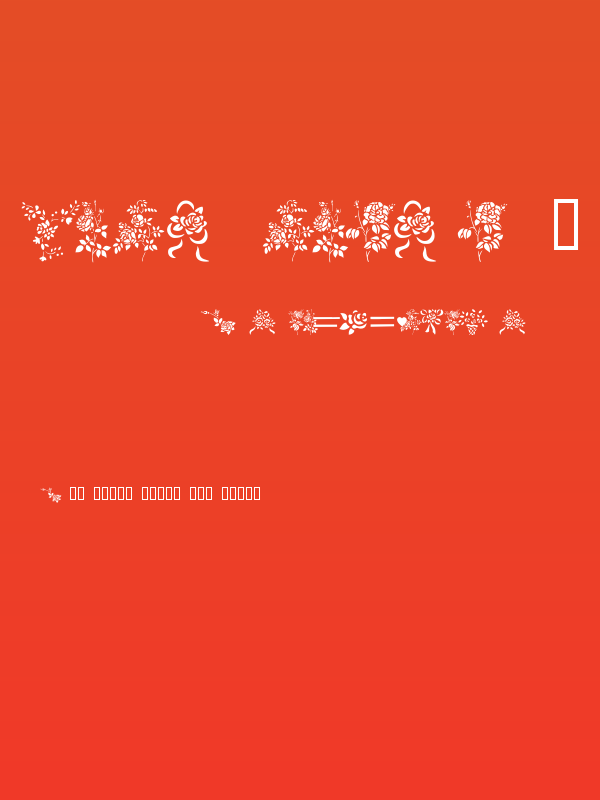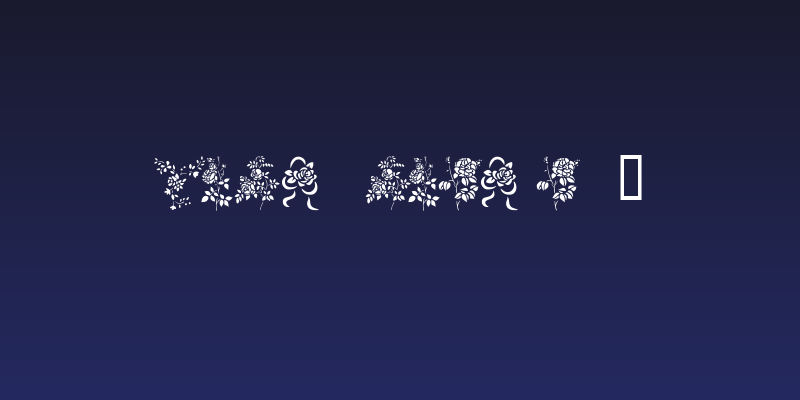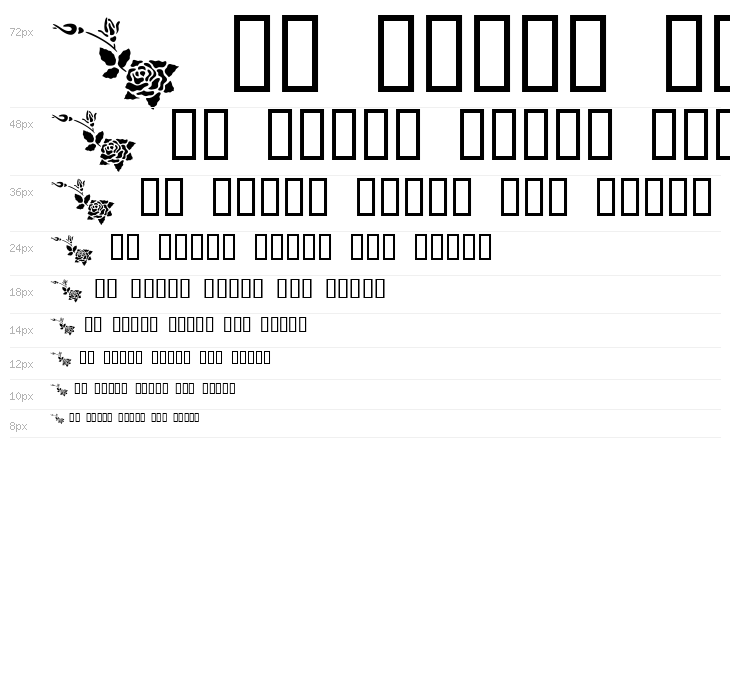
More Roses! Font
More Roses! Description
This is not a traditional font but rather a collection of decorative floral borders and motifs. The design features intricate rose patterns, leaves, and other floral elements arranged in a continuous line. These elements are highly detailed, showcasing a variety of floral styles from full blooms to buds and leaves. The motifs are symmetrical and can be used to create elegant borders or dividers in design projects. The overall aesthetic is ornate and decorative, making it suitable for embellishing invitations, stationery, or any project that requires a touch of floral elegance.
| Use Case | Decorative borders, Invitations, Stationery |
| Proposed Projects | Ideal for wedding invitations, greeting cards, decorative borders in books, or any project requiring elegant floral embellishments. |